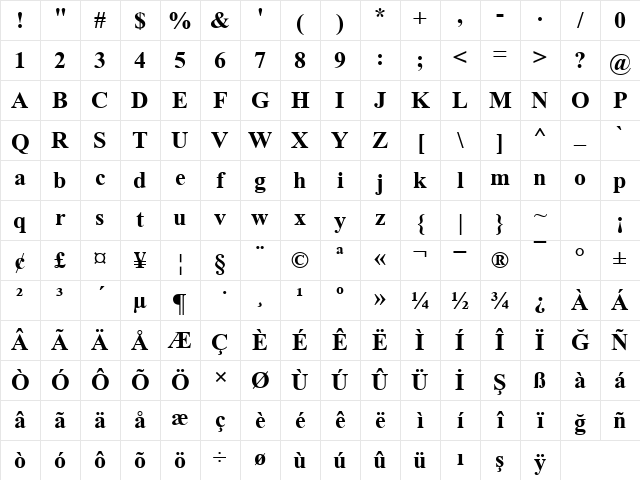
TR Times New Roman Bold Free Font
TR Times New Roman Bold
Complete TR Times New Roman Bold glyph index. Displaying only characters natively supported by TR Times New Roman Bold font.
Design Context for TR Times New Roman
TR Times New Roman is a composed and adaptable typeface that performs quietly and consistently across a wide range of design contexts. Its bold stroke weight gives it real presence on the page.